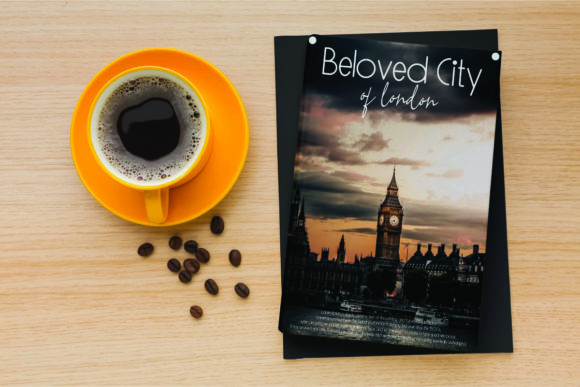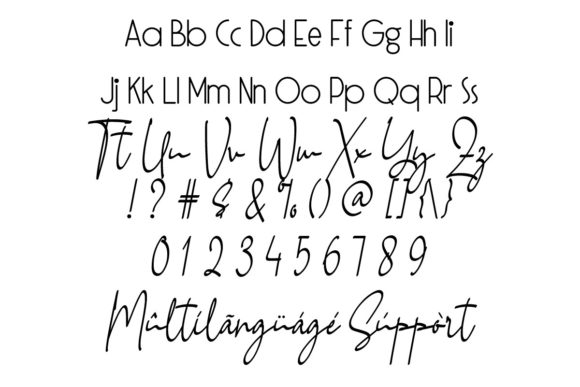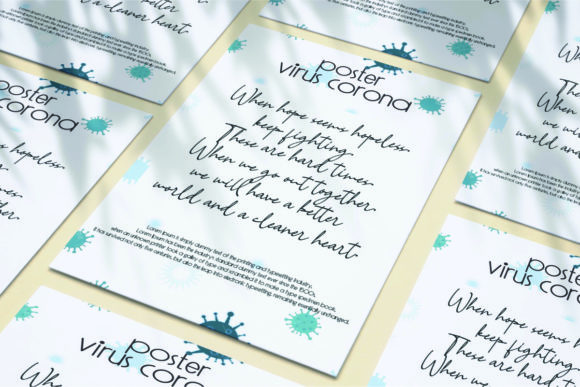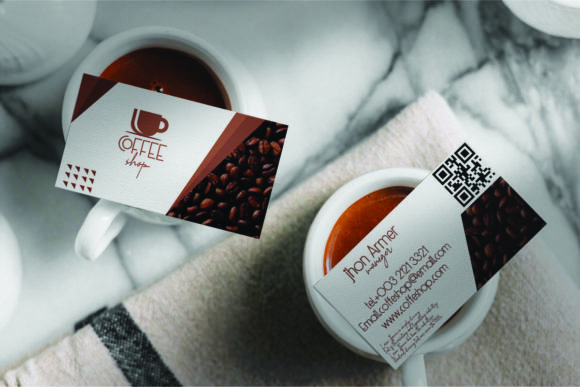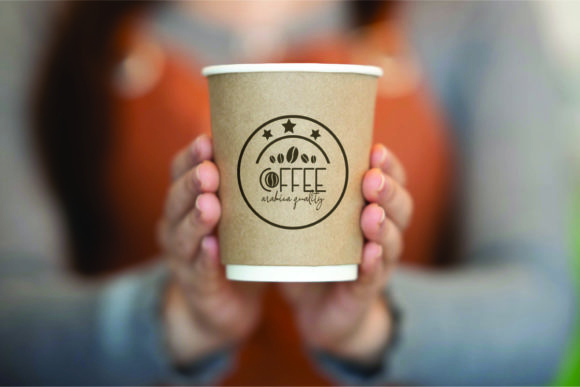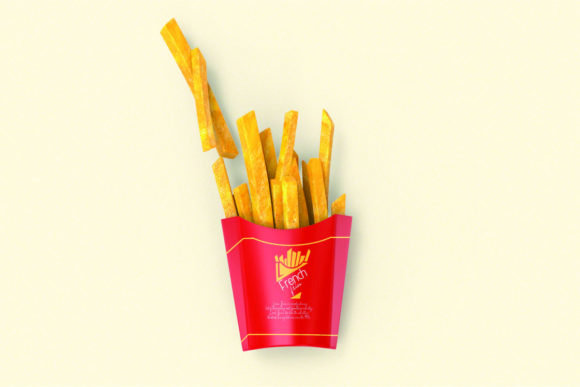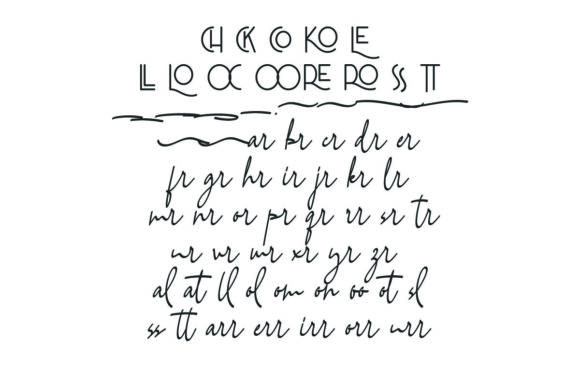
About Corona Real Font
Introducing Corona Real, a delightful duo of fonts designed to complement each other seamlessly. Whether used together or separately, these fonts are crafted to add a chic and cheery touch to your creative projects. With PUA encoding, accessing all the glyphs and swashes is effortless, providing you with a versatile toolkit for expressive and stylish designs.
Corona Real’s appeal lies in its ability to work harmoniously as a pair or stand alone for different applications. Whether you’re working on crafts, invitations, branding, or any other creative endeavor, this font duo brings a chic and cheerful aesthetic to the forefront.
For crafts, Corona Real becomes a defining element, adding a touch of elegance and charm. Whether you’re creating handmade items or DIY projects, the font duo contributes to a stylish and well-coordinated look.
In invitations and branding projects, Corona Real stands out with its chic and cheery script. The fonts’ complementary styles allow you to create designs that are both sophisticated and approachable, making a lasting impression on your audience.
Corona Real’s PUA encoding ensures easy access to all the glyphs and swashes, giving you the flexibility to customize your designs effortlessly. Whether you want to add playful details or elegant flourishes, the font duo provides the tools you need for creative expression.
Embrace the versatility and charm of Corona Real as you confidently incorporate it into your various creative projects. Whether you’re designing for crafts, events, or branding, let Corona Real be the stylish and cheerful touch that elevates your designs with a touch of sophistication and joy.